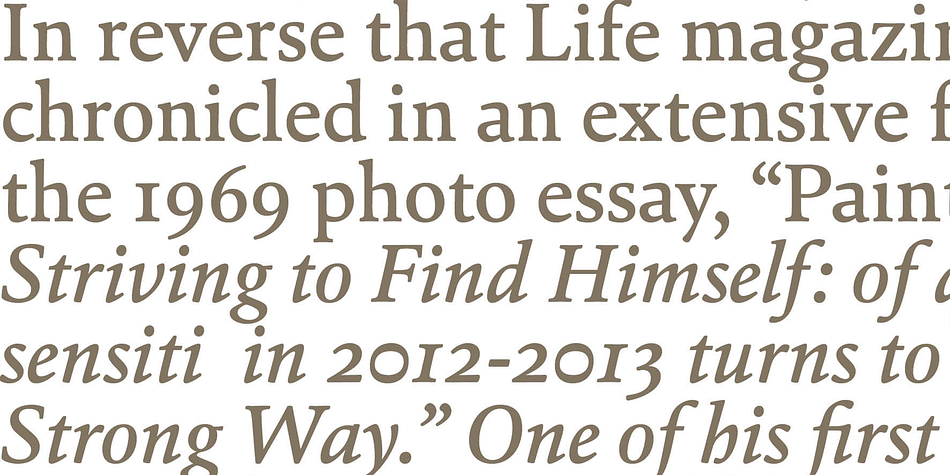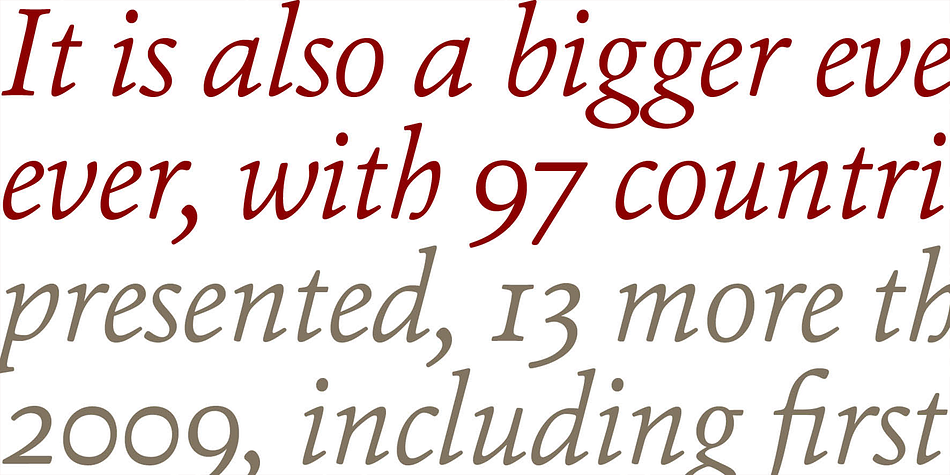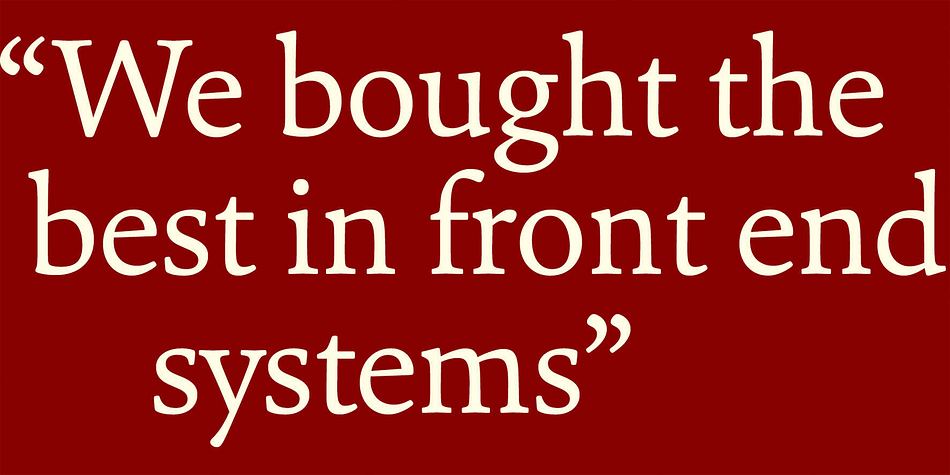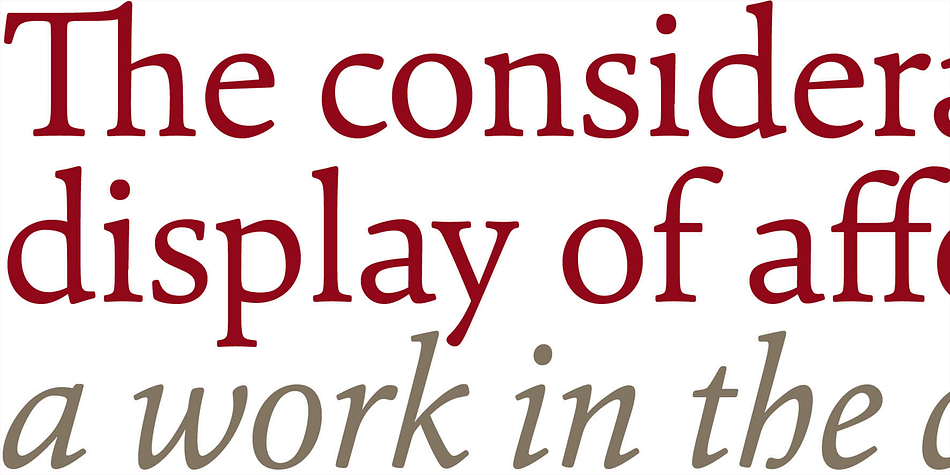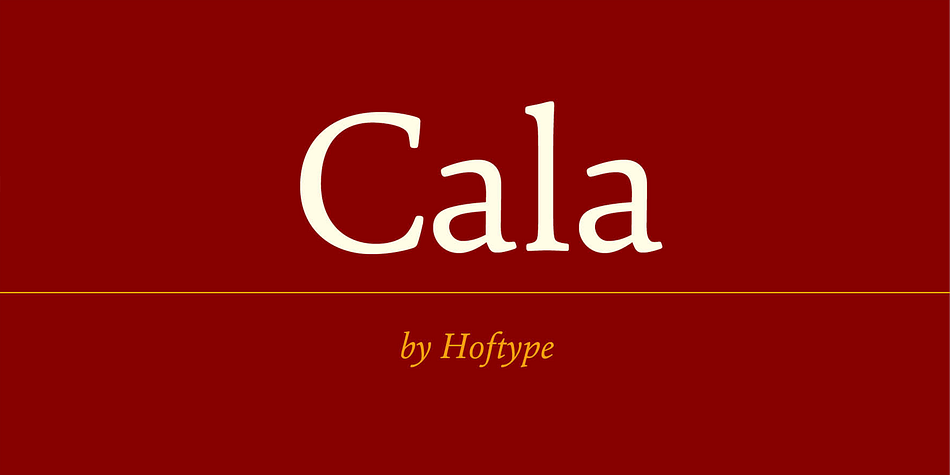
Cala is a serif font family. This typeface has eight styles and was published by Hoftype.
Cala is a reflection of Venetian Renaissance types but with a contemporary look. It has an energetic profile, achieved through soft outlines and a flowing rhythm. It is lively, remains stable in small sizes and is beautiful in display sizes.
Cala comes in eight styles, in OpenType format and with extended language support. All weights contain standard and discretional ligatures, small caps, proportional lining figures, tabular lining figures, proportional old style figures, lining old style figures, matching currency symbols, fraction- and scientific numerals.